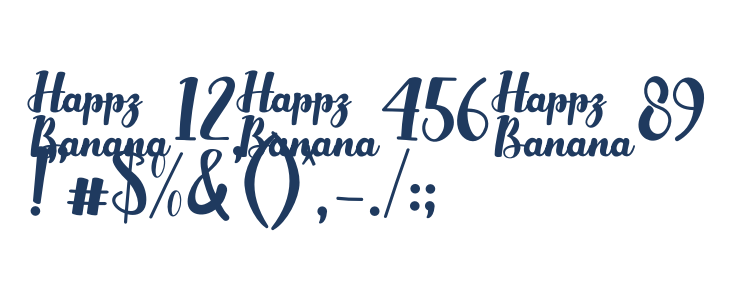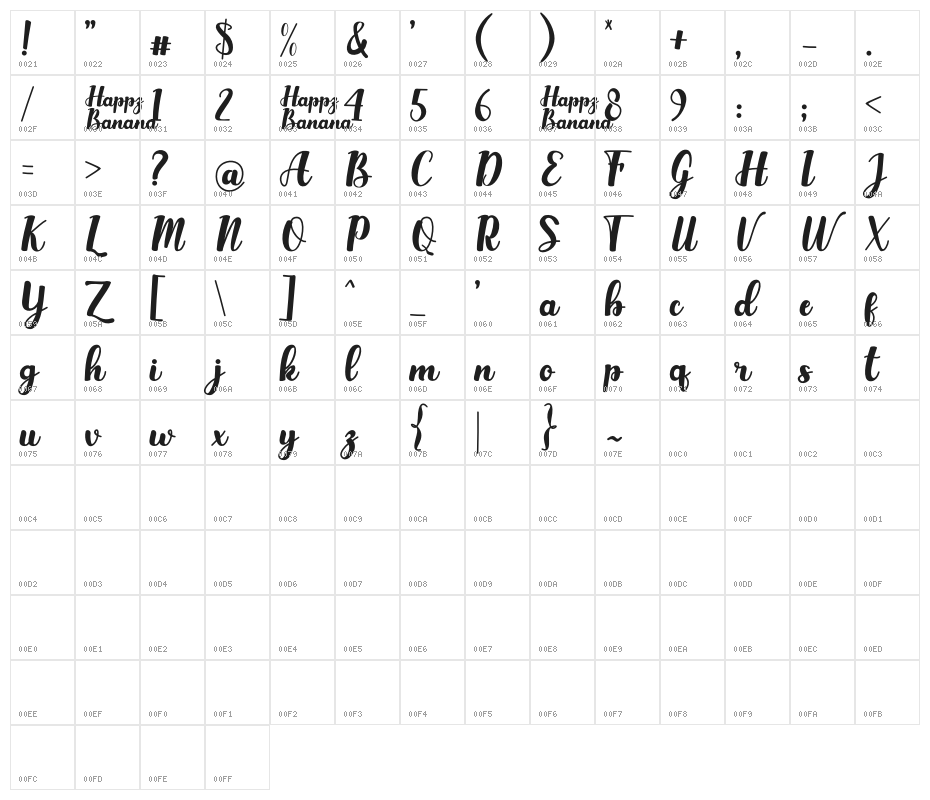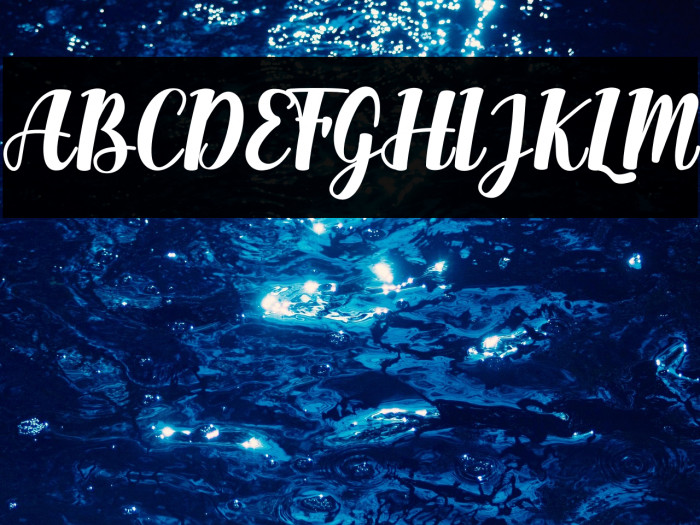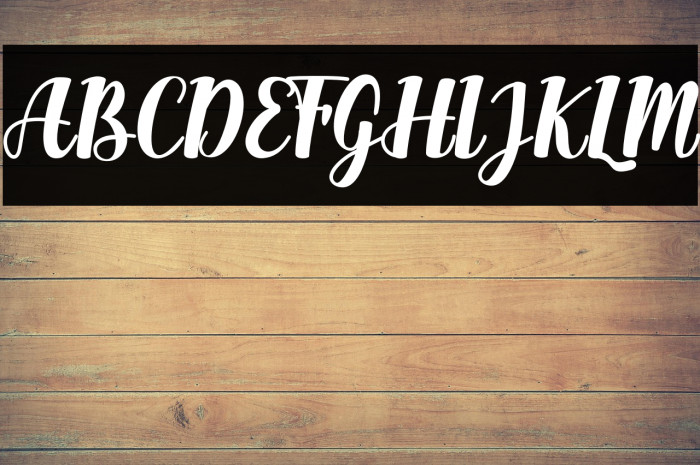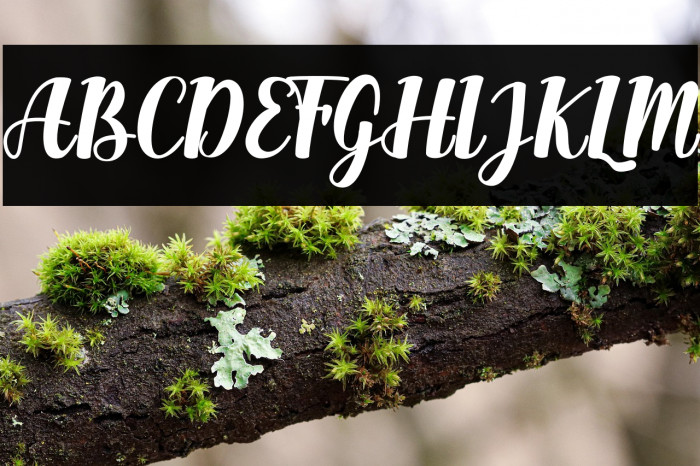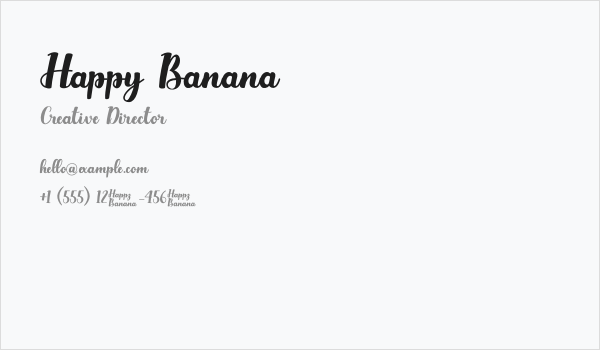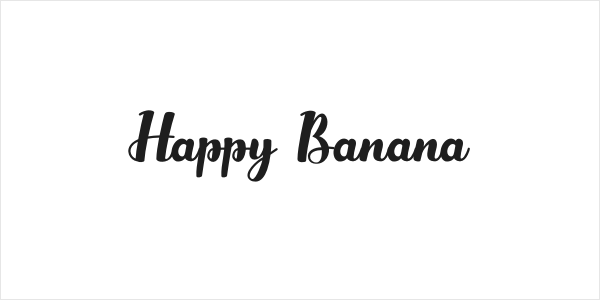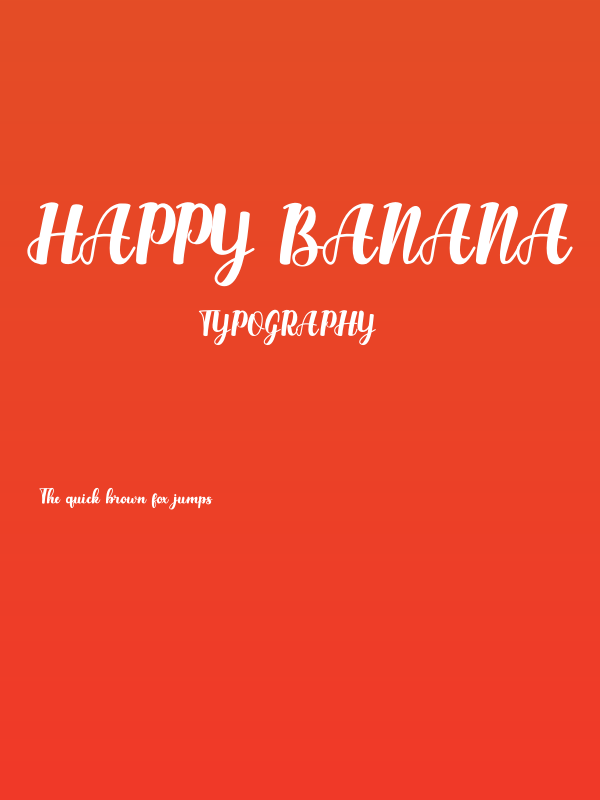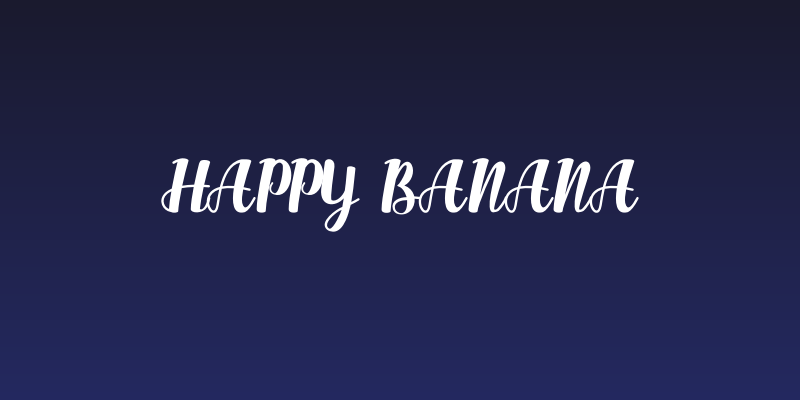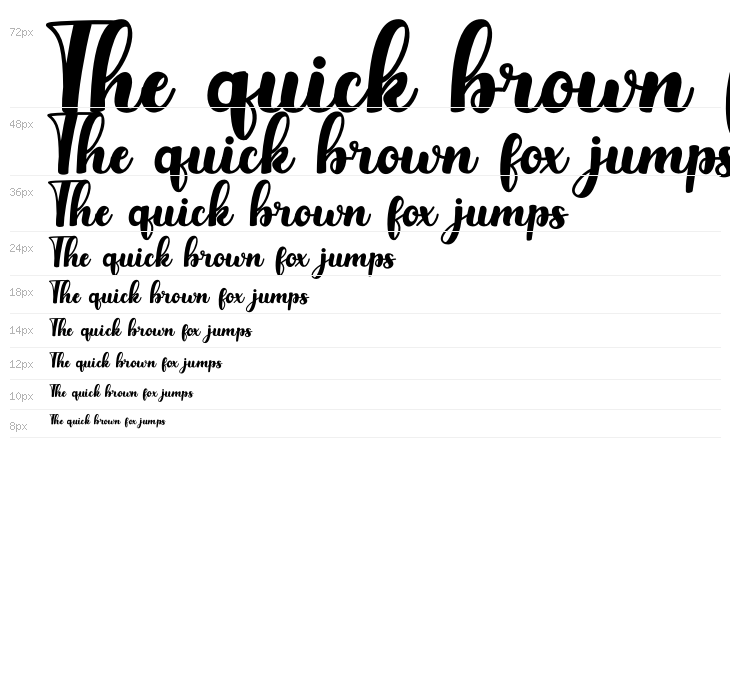
Happy Banana Font
Happy Banana Description
This font features a playful and energetic script style, characterized by its bold and flowing letterforms. The uppercase letters are distinct with a slight slant, giving them a dynamic appearance, while the lowercase letters maintain a consistent flow with rounded edges. The numbers are bold and match the overall style, ensuring readability. Special characters are creatively integrated, adding to the font's whimsical nature. This font is ideal for projects that require a lively and engaging aesthetic, making it suitable for branding, invitations, and creative designs.
Overall StylePlayful
Use CaseLogos, Invitations, Creative designs
Proposed ProjectsIdeal for branding, invitations, greeting cards, and creative design projects.